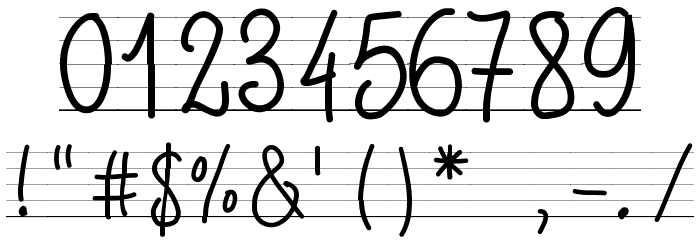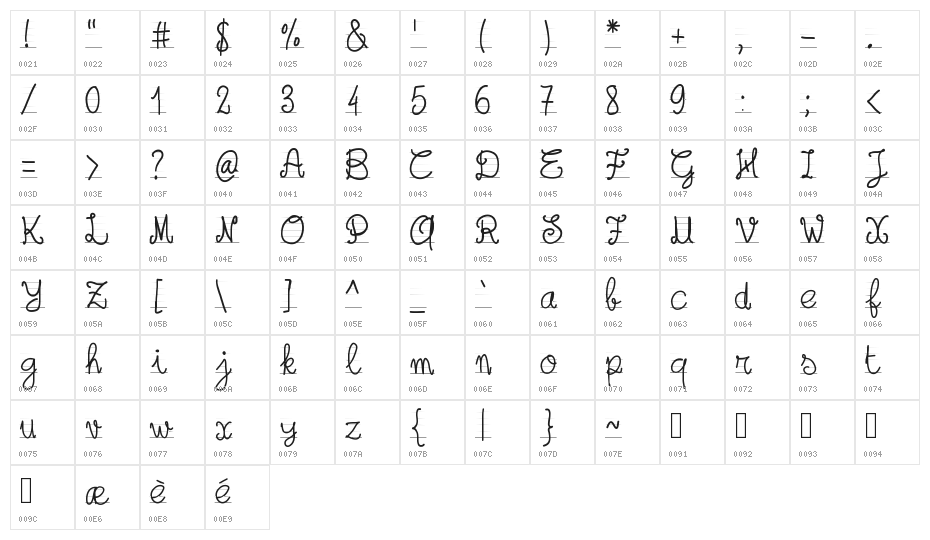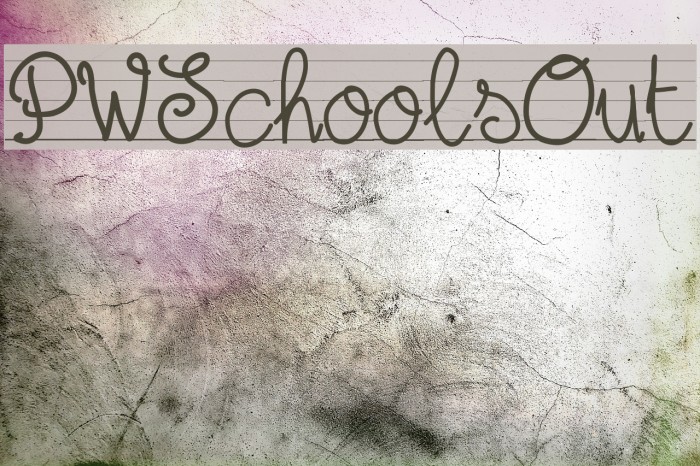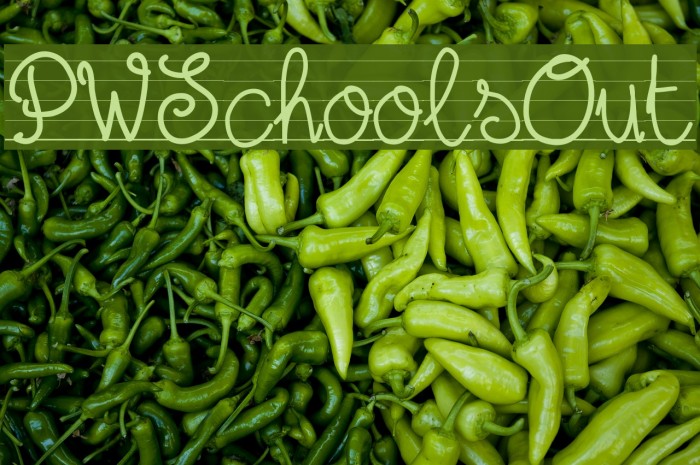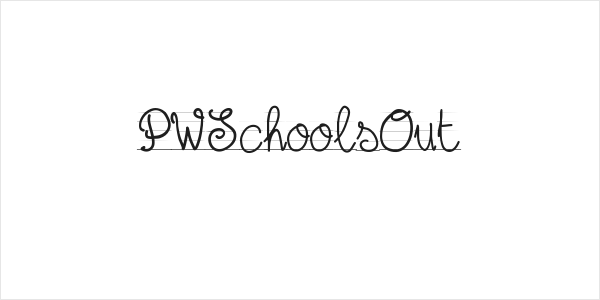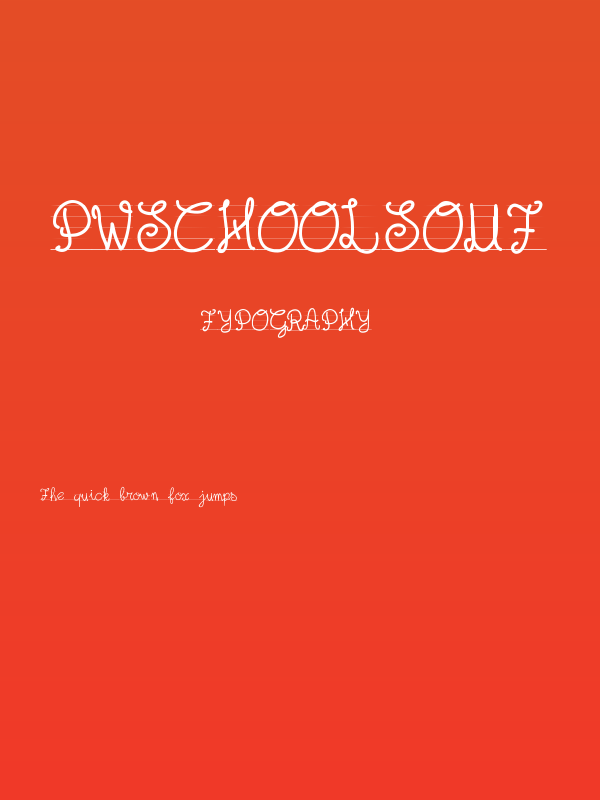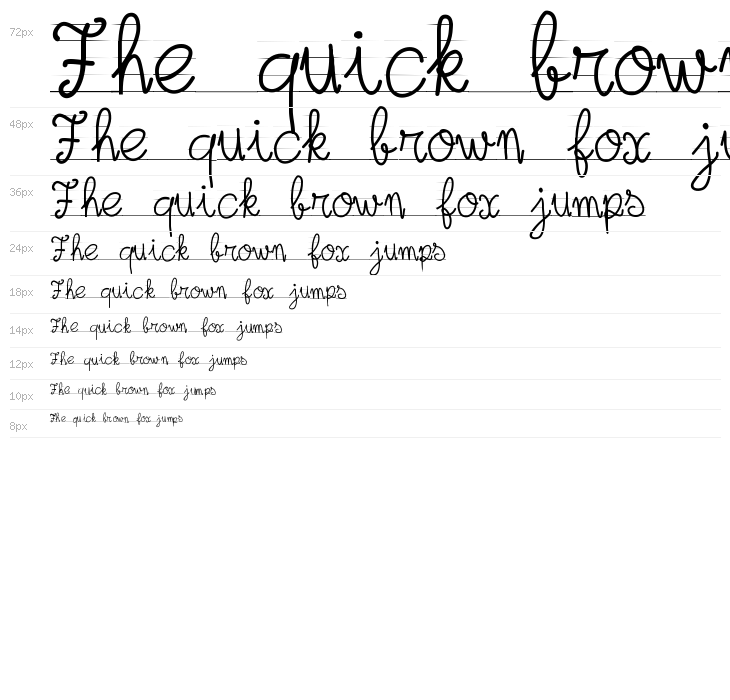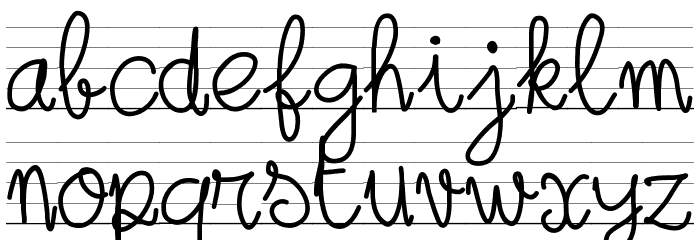
PWSchoolsOut Font
PWSchoolsOut Description
This playful and whimsical font features a handwritten style that mimics the look of a child's handwriting. The characters are rounded and slightly irregular, giving them a friendly and approachable feel. The uppercase and lowercase letters are distinct, with the uppercase letters being slightly larger and more pronounced. Numbers and special characters maintain the same playful aesthetic, making the font versatile for various uses. The overall design is consistent, with a slight slant that adds to its informal charm. This font is perfect for projects that require a touch of fun and creativity.
| Proposed Projects | Ideal for children's books, educational materials, playful branding, and creative invitations. |